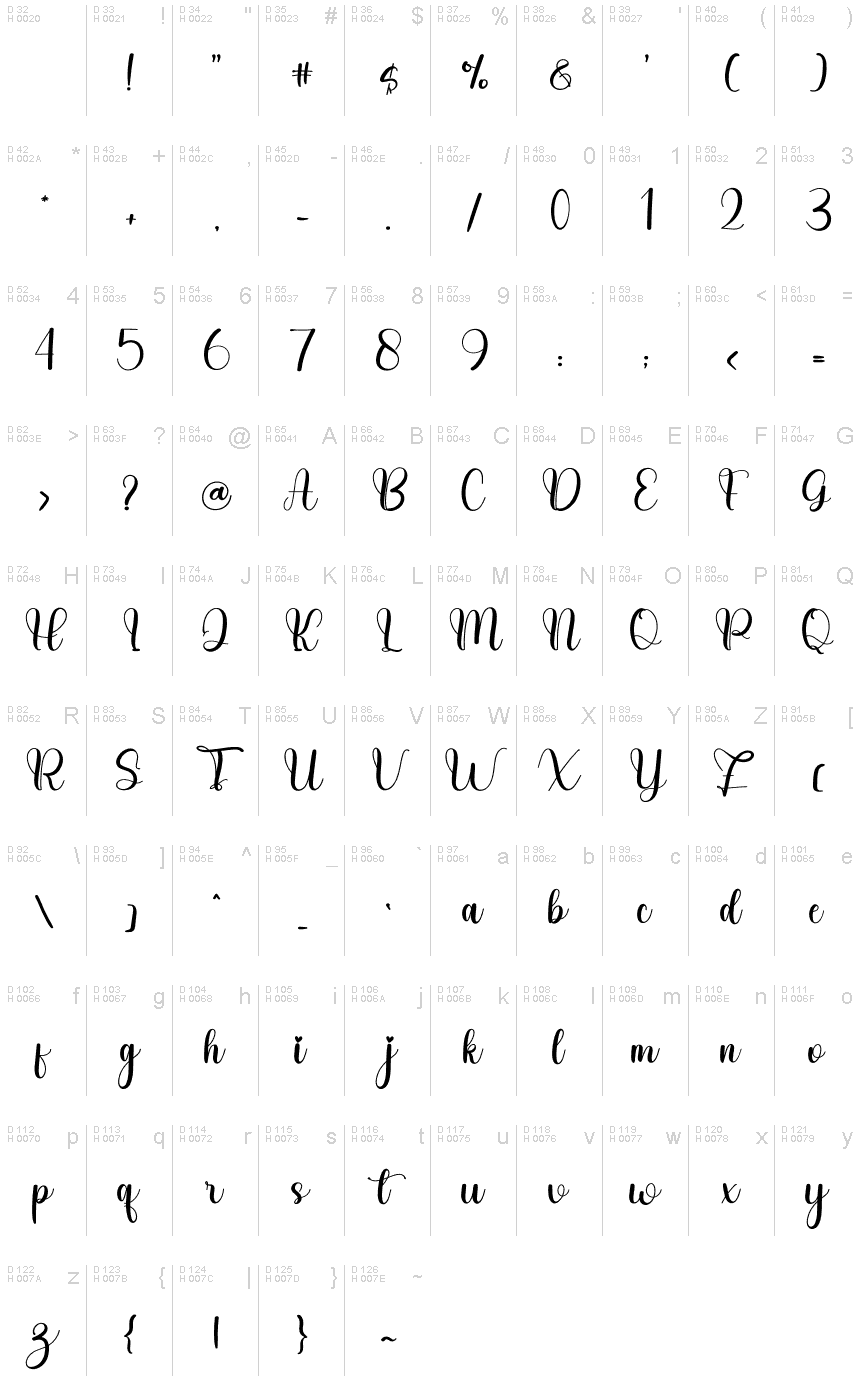
Barley
Barley, designed by FreshtypeINK, is a semi-light calligraphy font that exudes elegance and fluidity in every stroke. With its sweeping curves and fine lines, Barley brings a touch of personal sophistication to any project. This font's aesthetic appeal lies in its balance between the delicacy of handwriting and the clarity of typeface design.
The calligraphic style of Barley lends itself beautifully to invitations, branding, and editorial design where a handcrafted feel is desired without sacrificing legibility. Its semi-light weight ensures that it remains both airy and substantial enough for various creative applications.
Whether you're looking to elevate your wedding stationery or add a signature touch to your next logo design, Barley offers versatility while maintaining its unique charm.